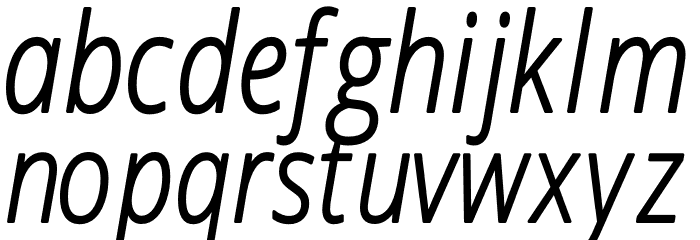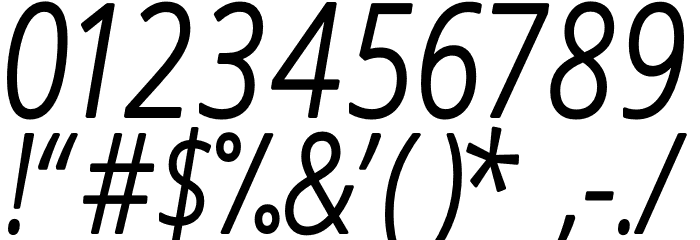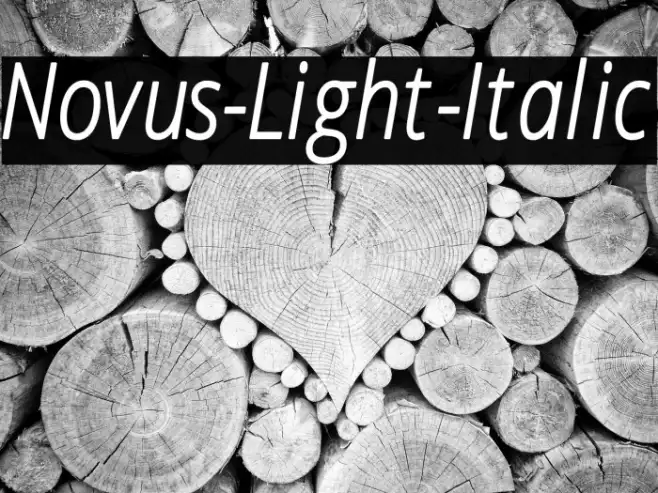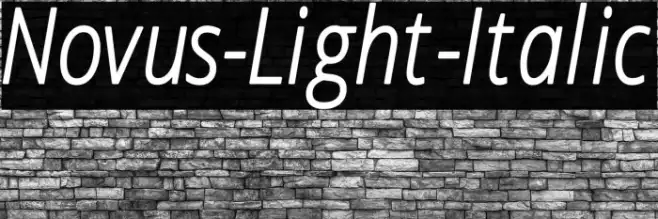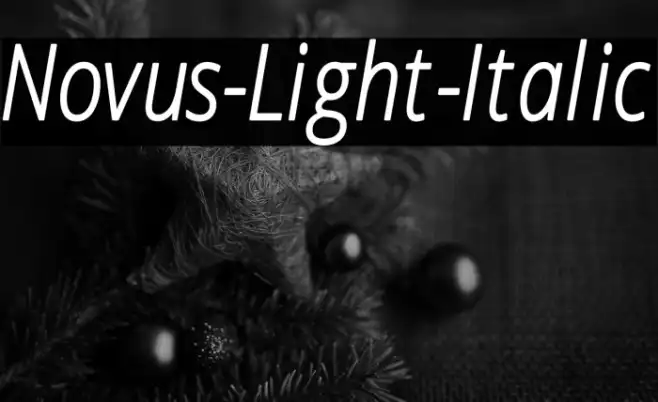
Novus-Light-Italic Font
This font features a sleek and modern design with a slight italic slant, giving it a dynamic and forward-moving appearance. The characters are clean and well-defined, with a consistent stroke width that maintains readability across various sizes. The uppercase and lowercase letters are proportionate, and the numerals are clear and distinct. Special characters are included, maintaining the font's cohesive style. This font's light weight and italic style make it suitable for projects that require a touch of elegance and sophistication.
A sleek, modern, and slightly italic font with a light weight.
- Proposed Projects: Ideal for branding, editorial design, digital content, and elegant invitations.